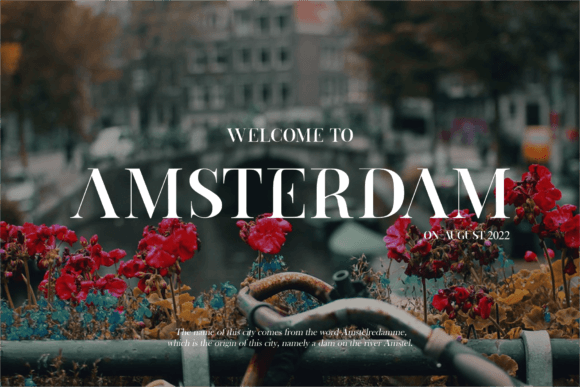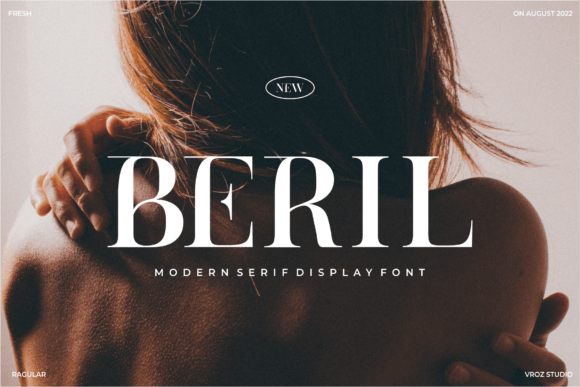
Beril Font
Designer: Vroz Studio
Beril Font – Modern Display Serif Font will be perfect for many projects: fashion, magazines, logos, branding, photography, invitations, wedding invitations, quotes, blog headers, posters, advertisements, postcards, books, websites, etc.